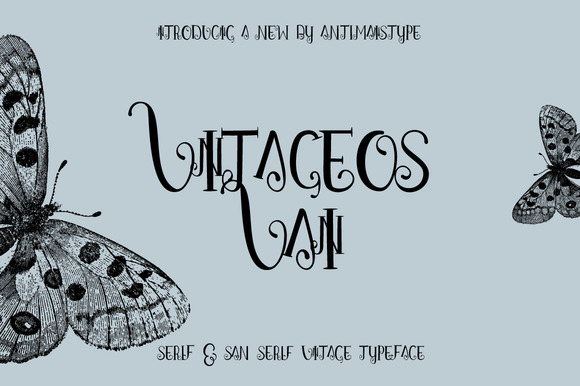
Vintageos Vain Font
Introducing Vintageos Vain, a new vintage-style typeface that's guaranteed to add character and charm to your next project! With its carefully crafted serif and sans serif styles, Vintageos Vain is the perfect choice for logos, wedding invitations, headings, t-shirts, letterheads, signage, labels, posters, badges, and more.
Unleash your creativity and elevate your designs with Vintageos Vain's beautiful OpenType features. Stylistic and contextual alternatives, standard and discretionary ligatures, and comprehensive language support make Vintageos Vain a versatile and expressive font family that's sure to make a lasting impression.
With Vintageos Vain, you can effortlessly capture the essence of nostalgia and timeless style. Its vintage charm will evoke a sense of warmth and familiarity, while its modern sensibility ensures that your designs stay relevant and captivating.
Transport yourself to a bygone era of elegance and sophistication with Vintageos Vain. Whether you're creating a nostalgic logo, a heartfelt wedding invitation, or an eye-catching poster, Vintageos Vain will add an undeniable touch of class and distinction.
Don't settle for ordinary fonts that blend in with the crowd. Embrace the uniqueness and charm of Vintageos Vain and make your designs stand out. Experience the beauty and versatility of this remarkable font family today and unlock a world of creative possibilities!